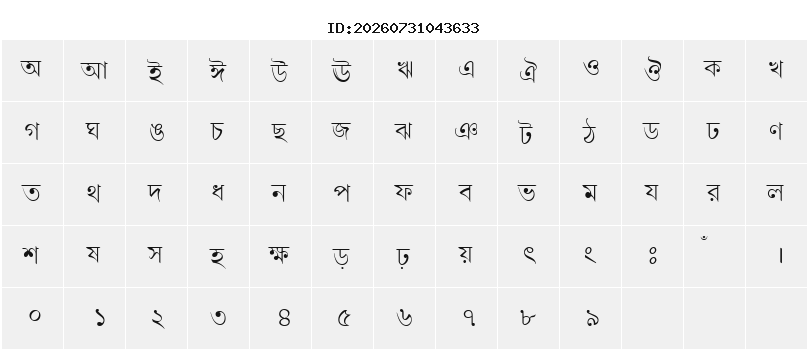
• Font Name: LipiNormal
LipiNormal.ttf is a modern, elegant sans-serif font designed for ultimate readability and visual harmony. Perfect for branding, headlines, web design, and print materials.